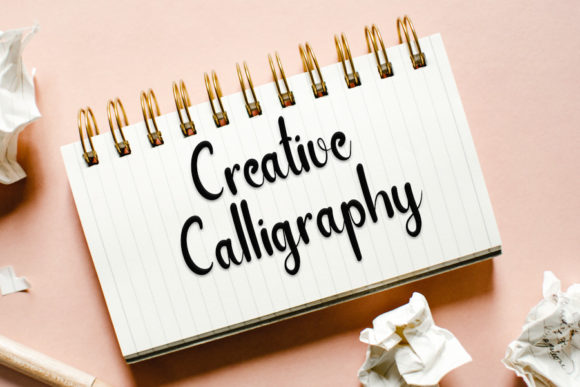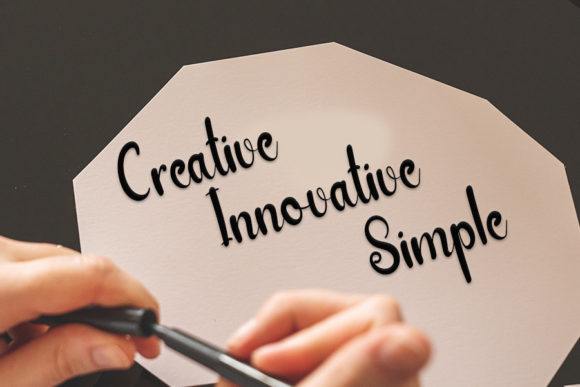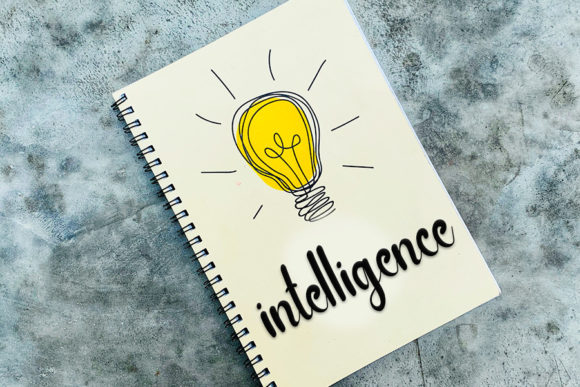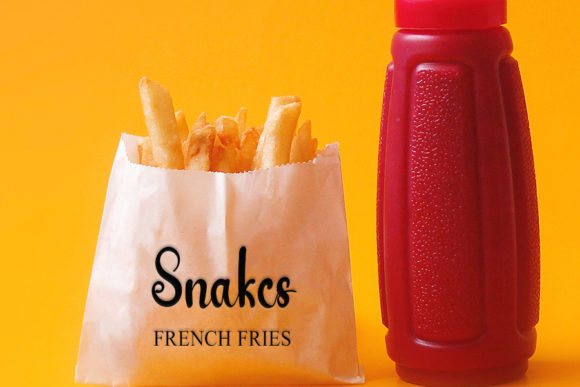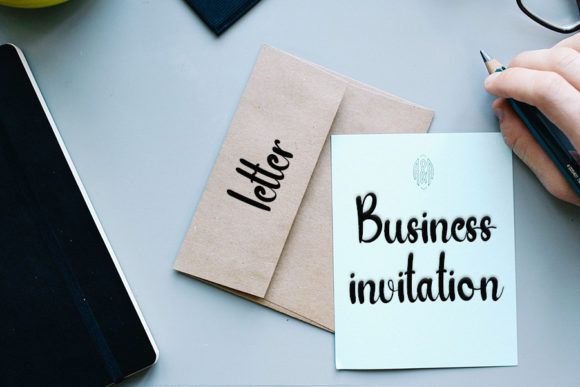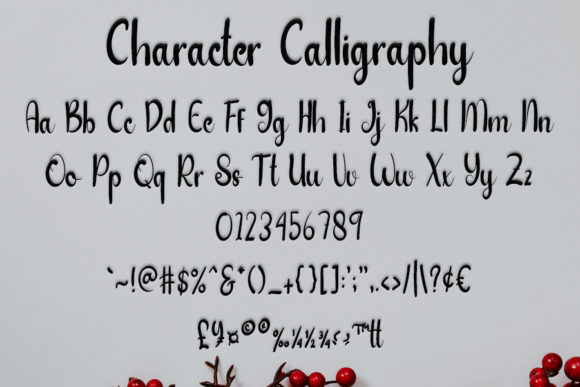
The Calligraphy Font That Stole My Heart
I still remember the design project that led me to fall in love with the Calligraphy font. I was working on a wedding invitation suite, and my client was adamant about finding a font that exuded elegance and sophistication. After hours of scouring through font libraries, I stumbled upon Calligraphy, and it instantly became my go-to. Its classy calligraphic influences, combined with a contemporary and fresh feel, made it the perfect fit for the project. And, as I soon discovered, it’s been a true favorite ever since.
- ✨ Elegant and sophisticated feel, perfect for high-end projects
- ✅ Highly versatile, suitable for a wide range of design applications, from wedding invitations to branding and packaging
- 💫 Beautifully crafted, with intricate details that make it stand out from other calligraphic fonts
- 🌈 Extensive character set, including support for multiple languages
While Calligraphy is an exceptional font, there are a few minor quirks to be aware of:
- 🤔 Some users may find the font’s script-like connections a bit tricky to work with, especially when using it for body text
- ⚠️ As with many script fonts, it may not be the best choice for very small font sizes or low-resolution applications
The Story Behind Calligraphy
Calligraphy was designed with the intention of creating a font that would bring a touch of elegance and sophistication to any design project. Inspired by traditional calligraphy, the font’s creator aimed to craft a modern, fresh take on the classic style. The result is a font that feels both timeless and contemporary, perfect for designers, crafters, and creative hobbyists alike.
Q: What type of projects is Calligraphy best suited for?
A: Calligraphy is a versatile font that can be used for a wide range of projects, from wedding invitations and branding to packaging and digital graphics.
Q: Does Calligraphy support multiple languages?
A: Yes, Calligraphy has an extensive character set, including support for multiple languages.
Q: Can I use Calligraphy in combination with other fonts?
A: Absolutely! Calligraphy pairs well with a variety of fonts, from sans serifs to serifs and other script fonts. Experiment with different combinations to find the perfect look for your project.